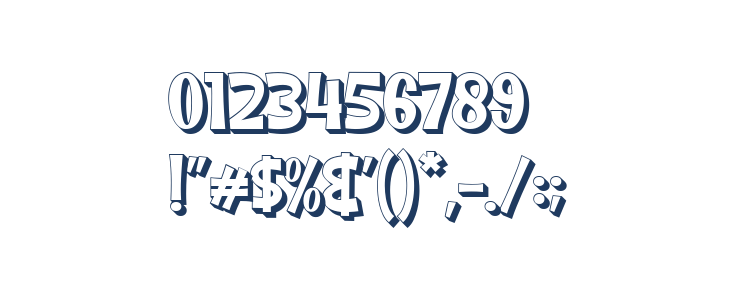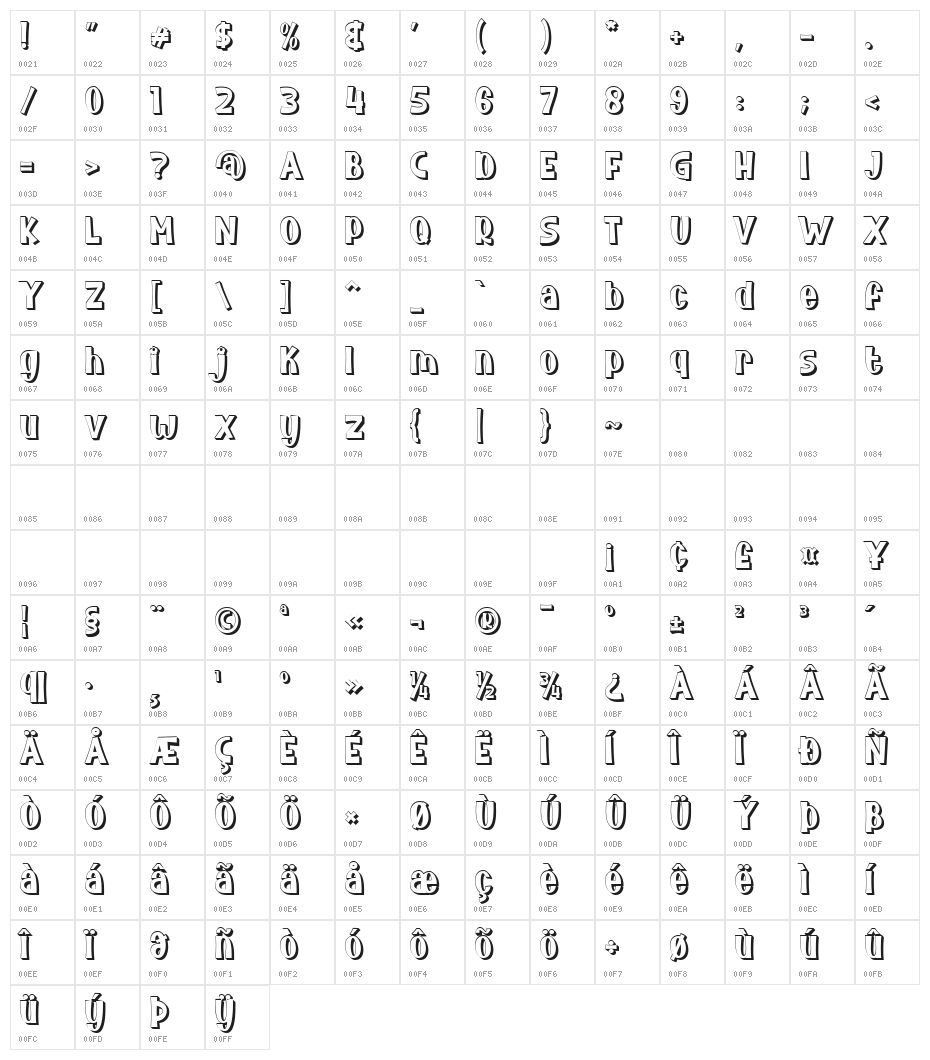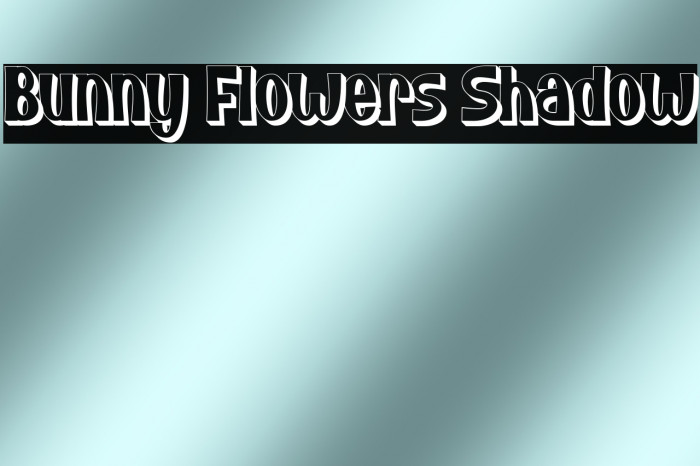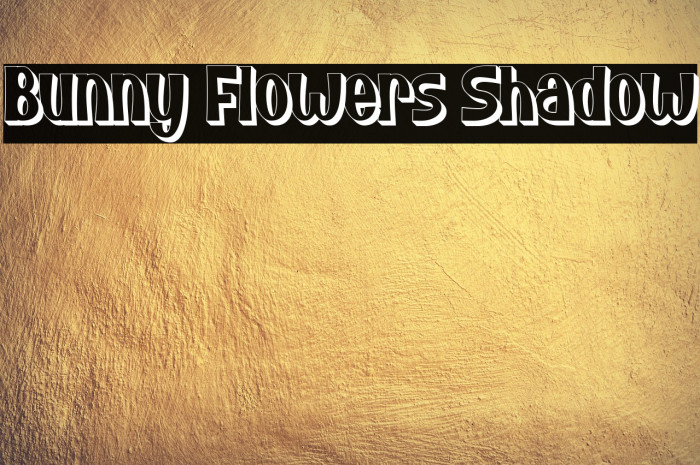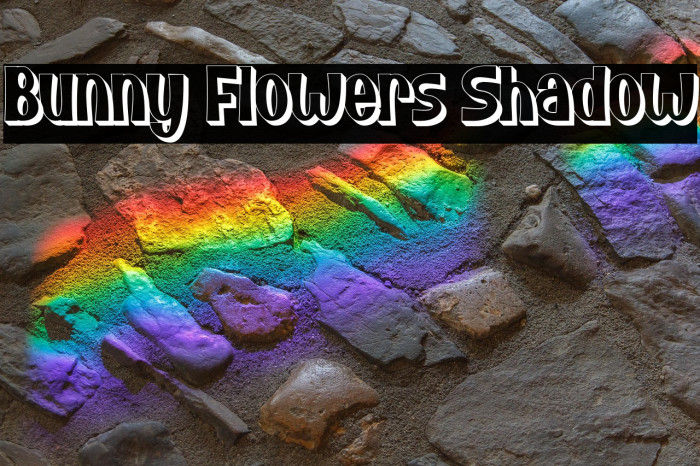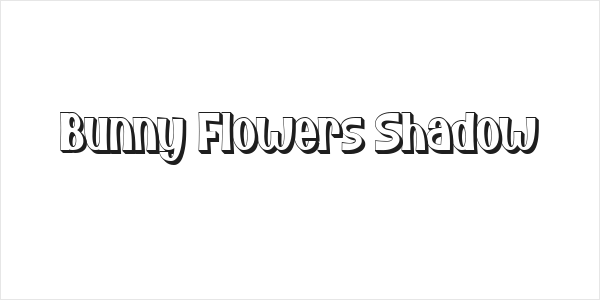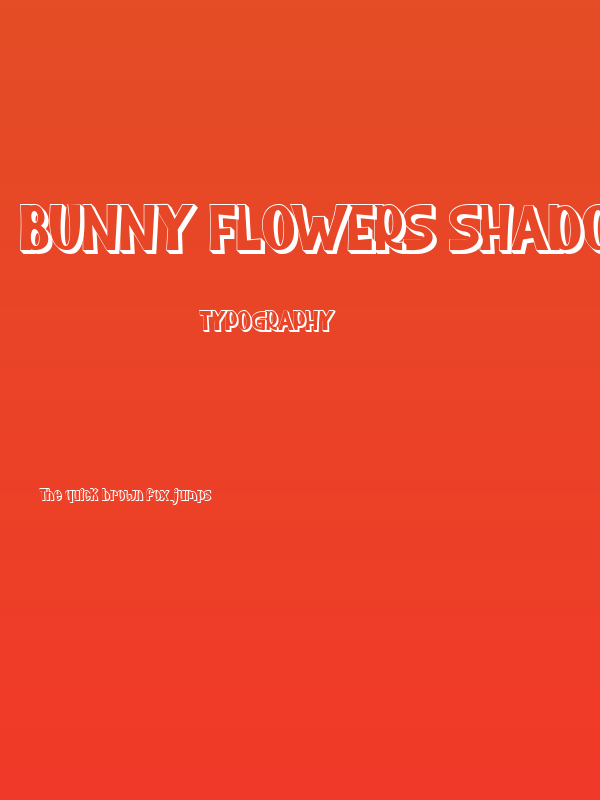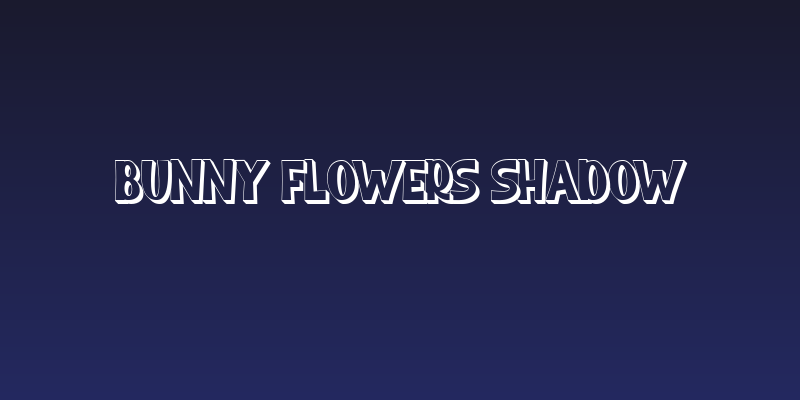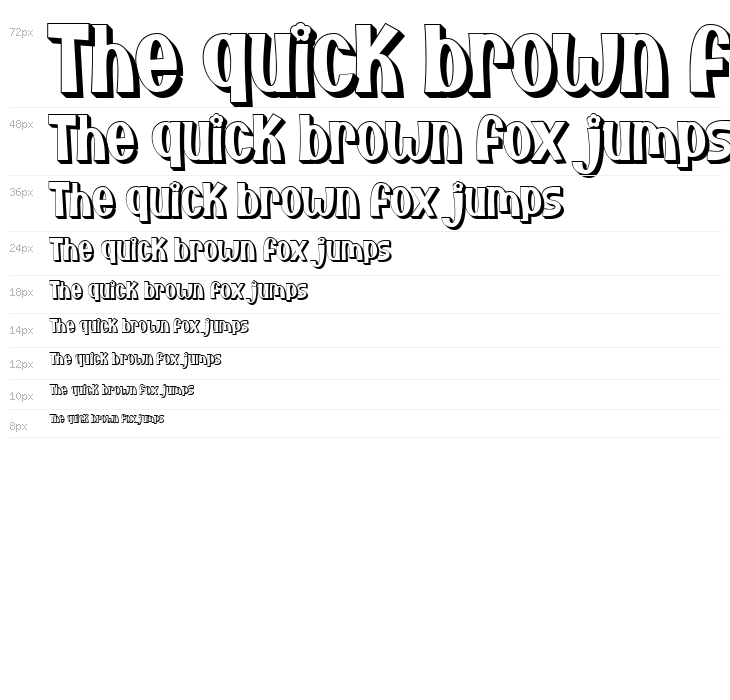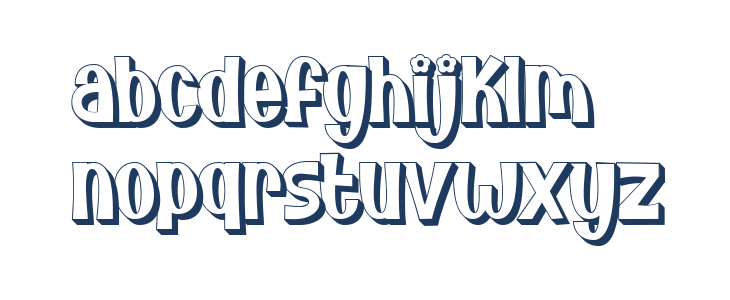
Bunny Flowers Shadow Font
Bunny Flowers Shadow Description
This playful and whimsical font features bold, rounded characters with a distinct shadow effect that gives it a three-dimensional appearance. The letters are slightly irregular, adding to the casual and fun aesthetic. The uppercase and lowercase letters maintain a consistent style, with the lowercase letters having a slightly more relaxed form. The numbers and special characters are designed to match the overall playful theme, making this font ideal for creative and informal projects. The shadow effect adds depth, making the text stand out, which is perfect for eye-catching designs.
| Use Case | Headlines, Posters, Branding |
| Proposed Projects | Great for children's books, party invitations, playful branding, and posters. |